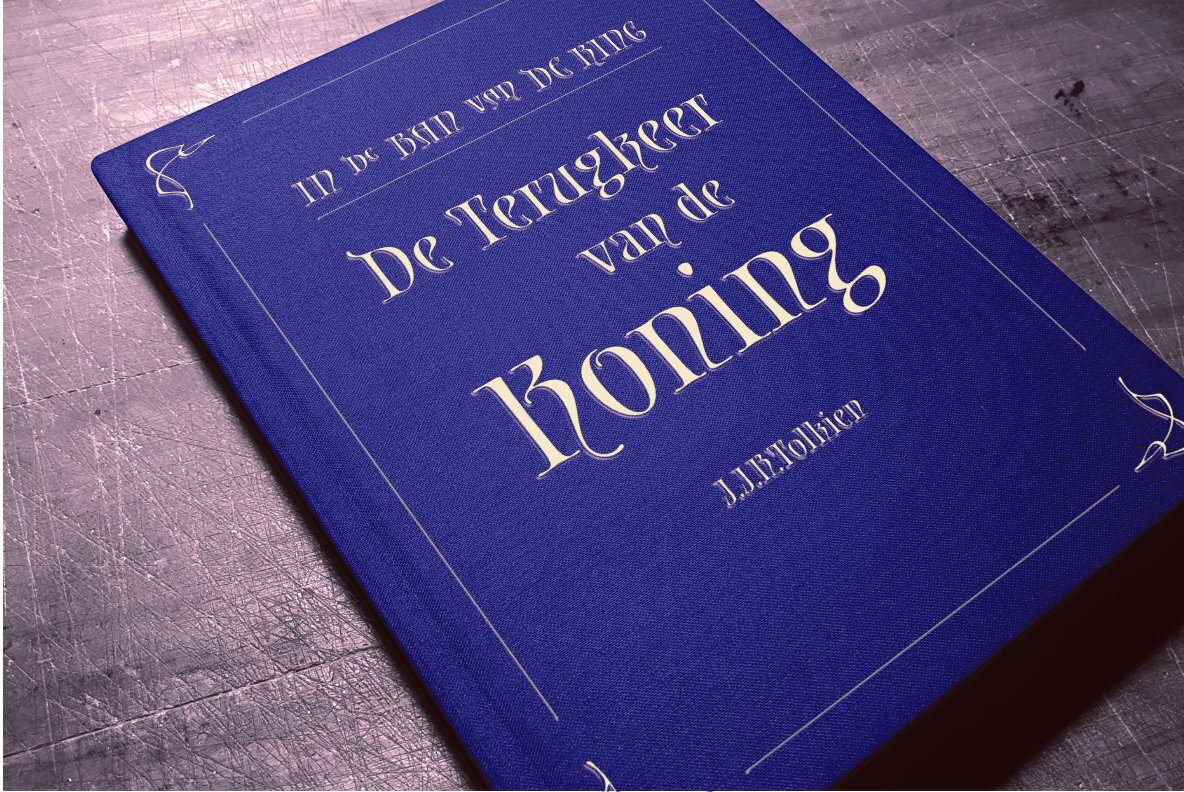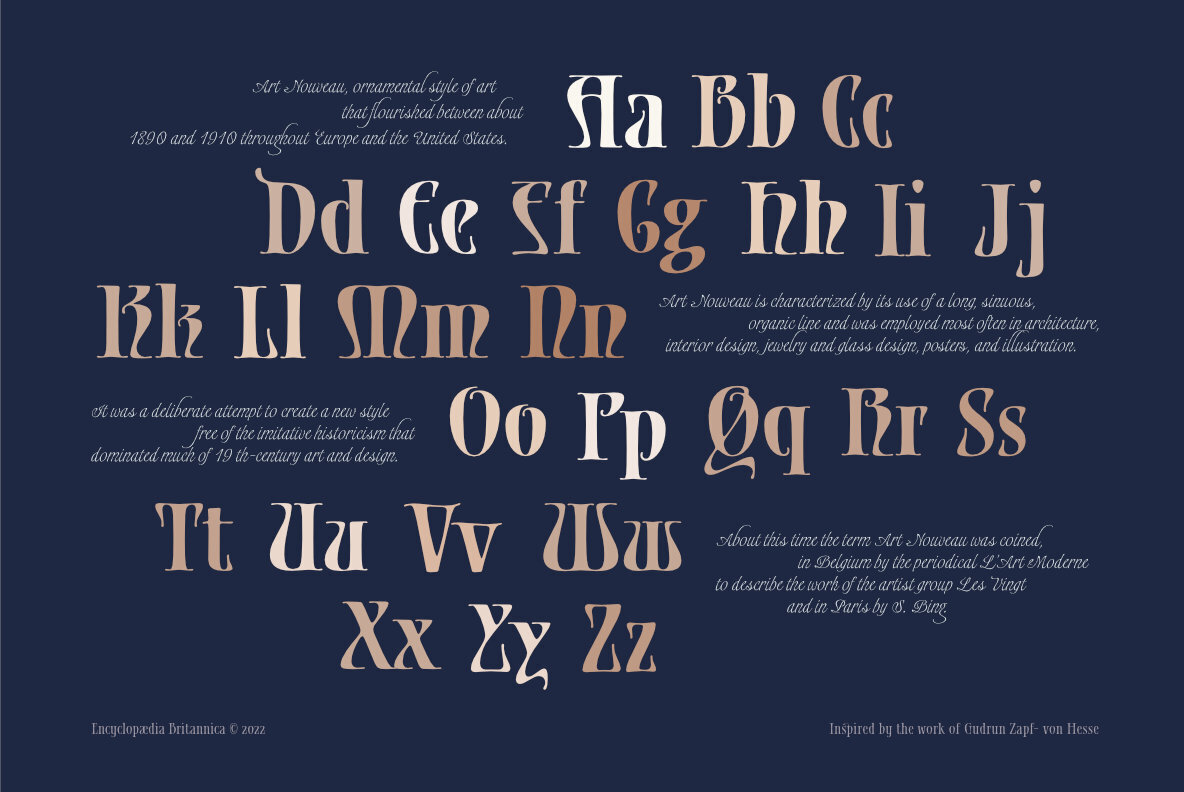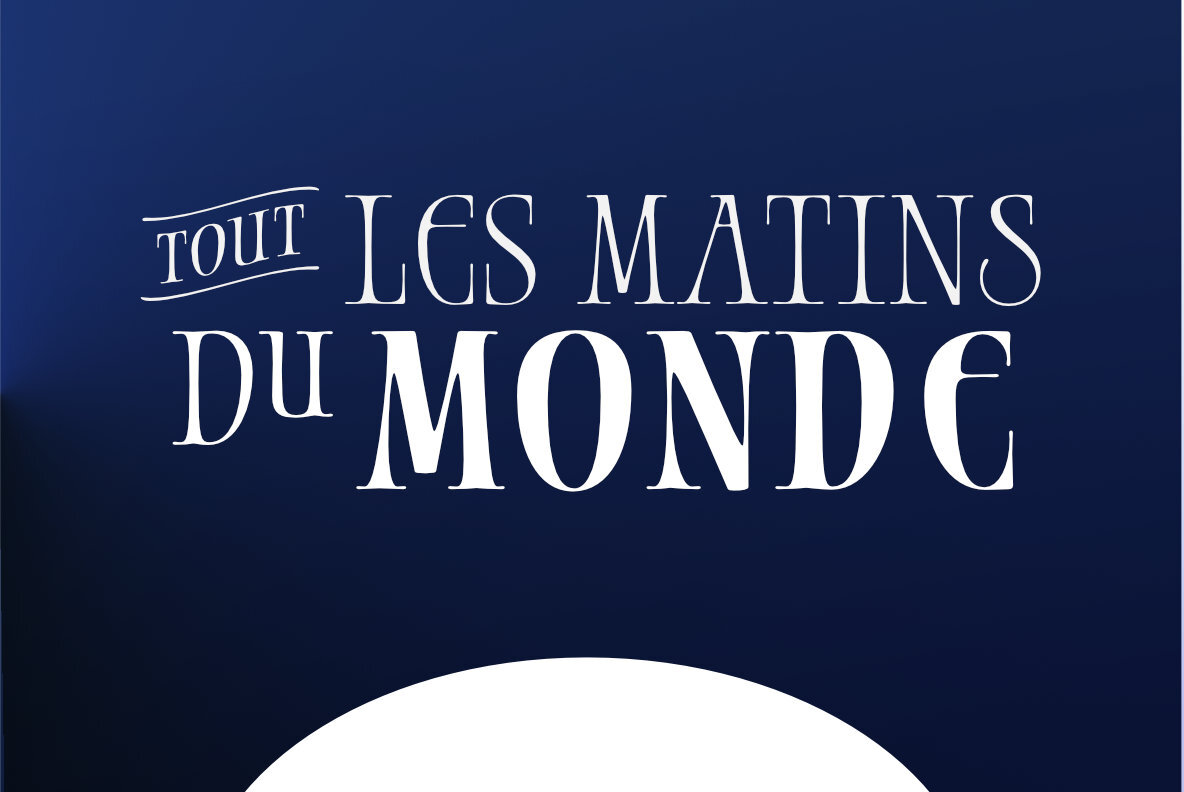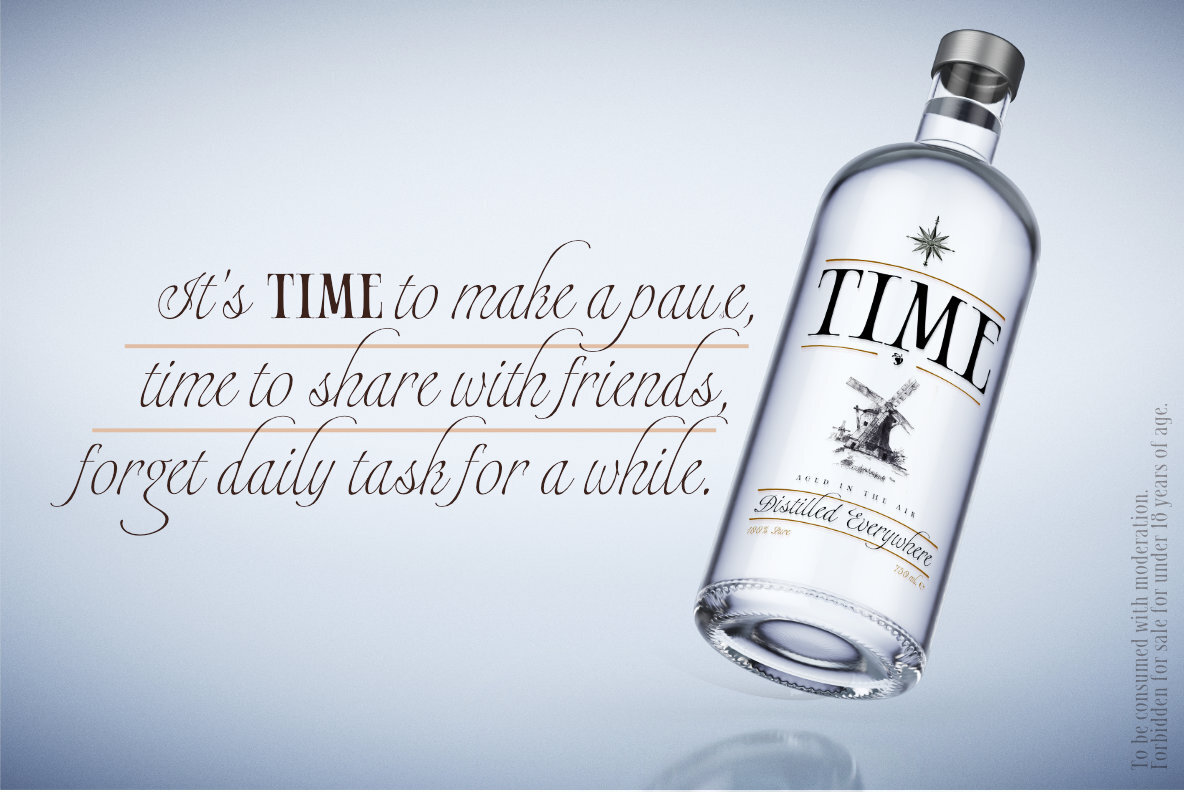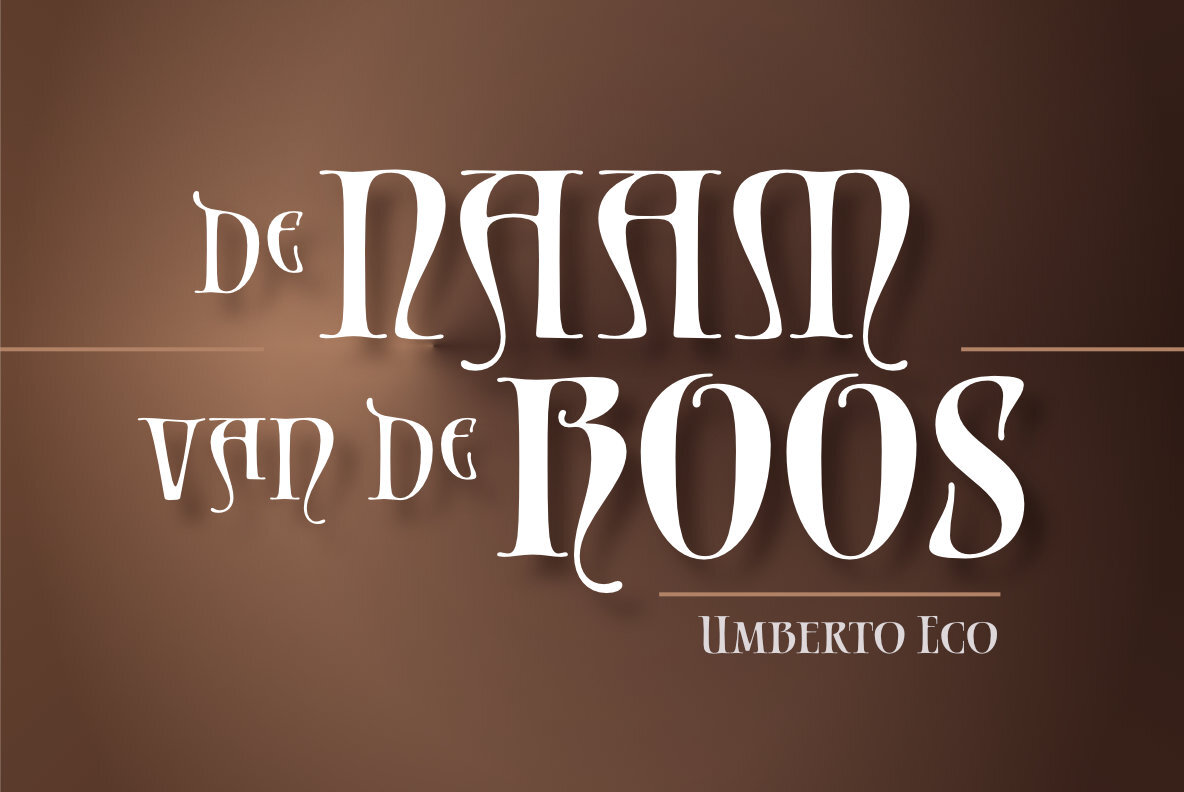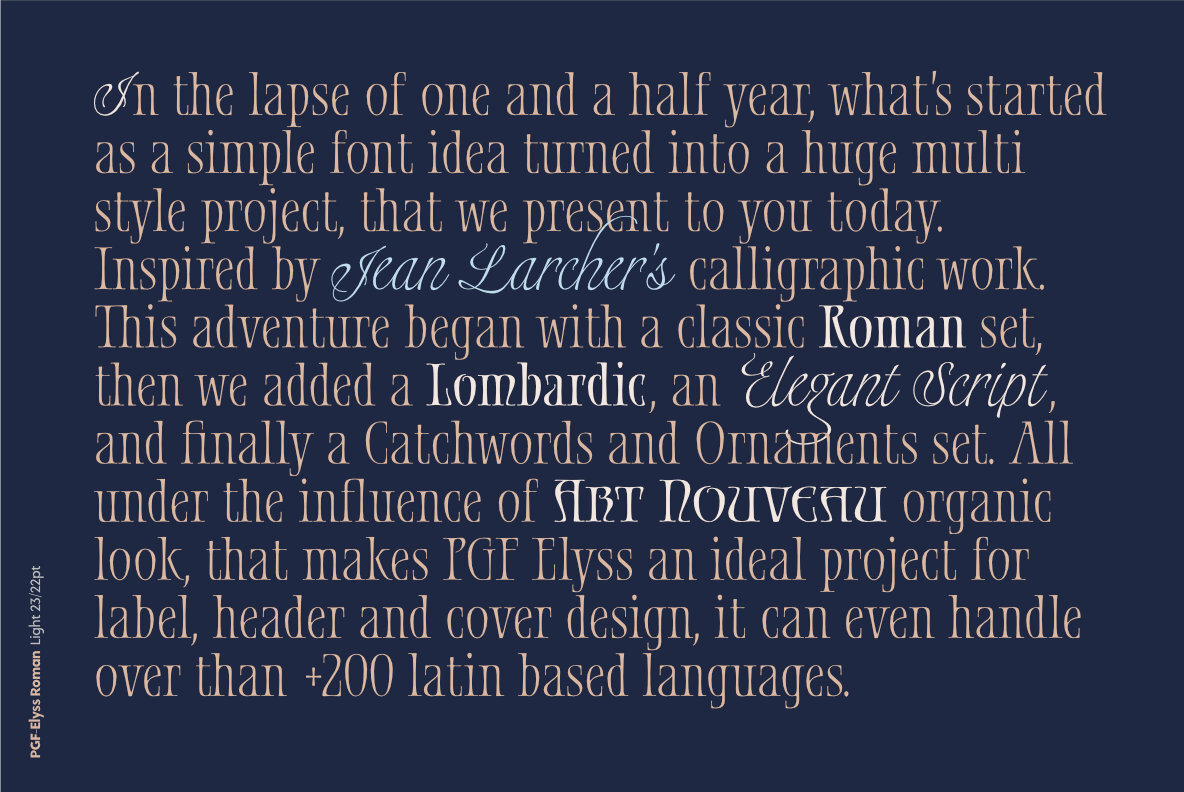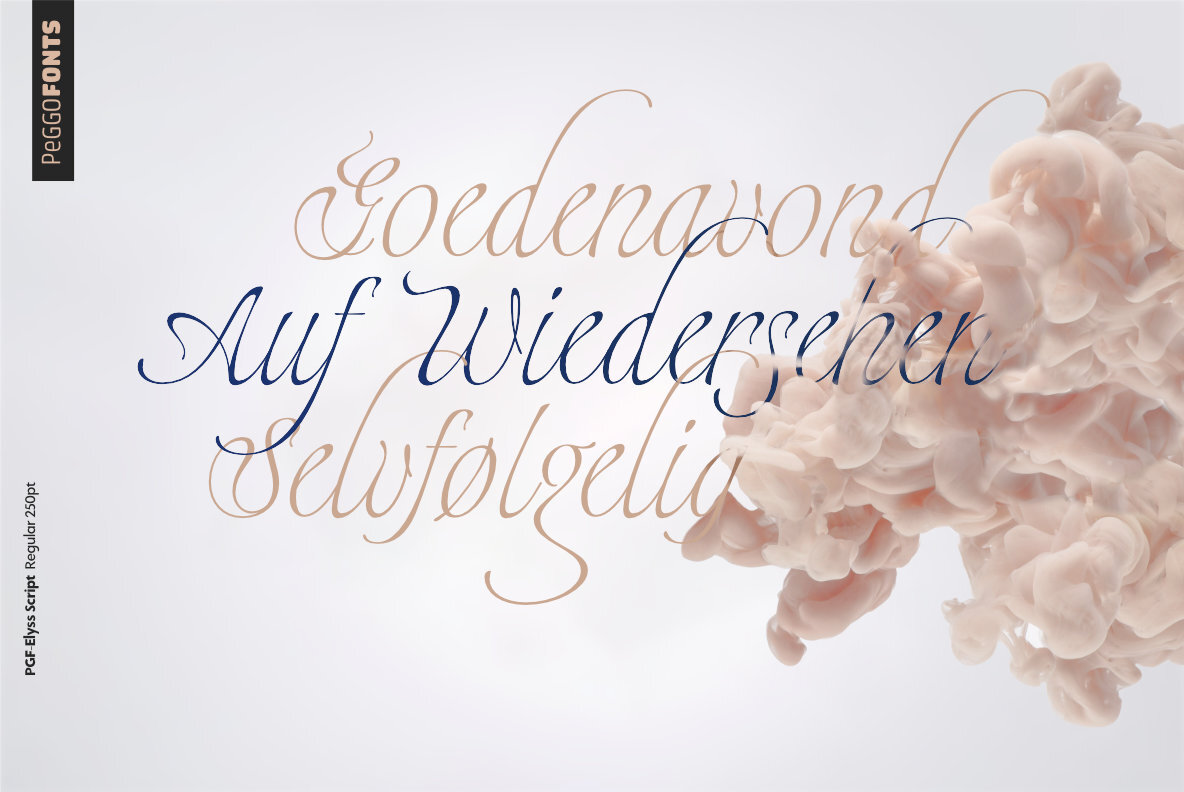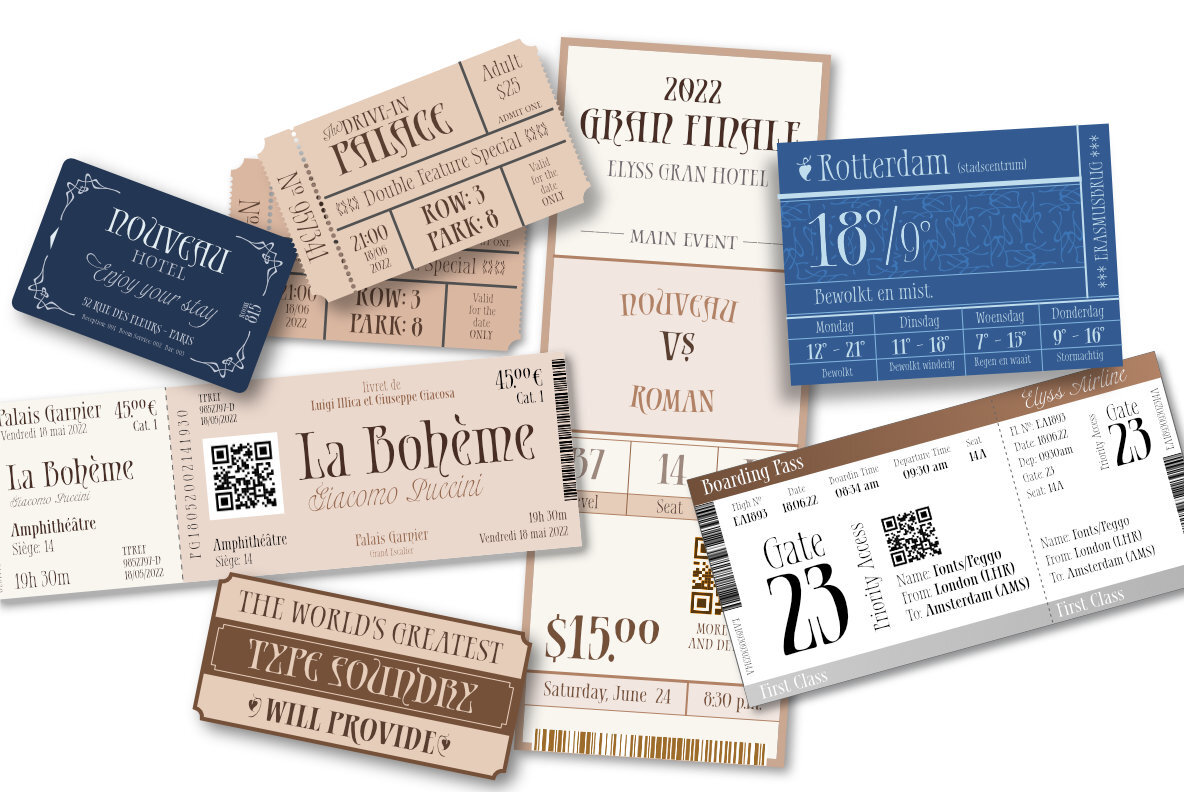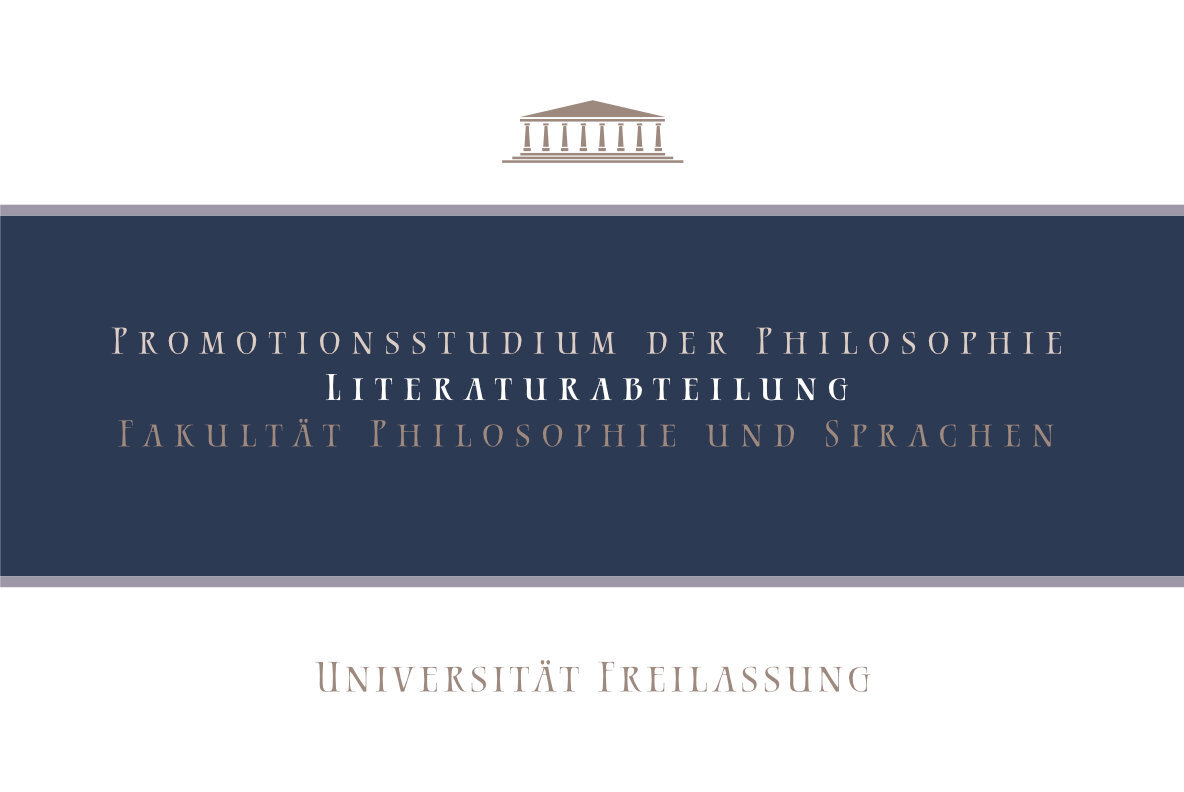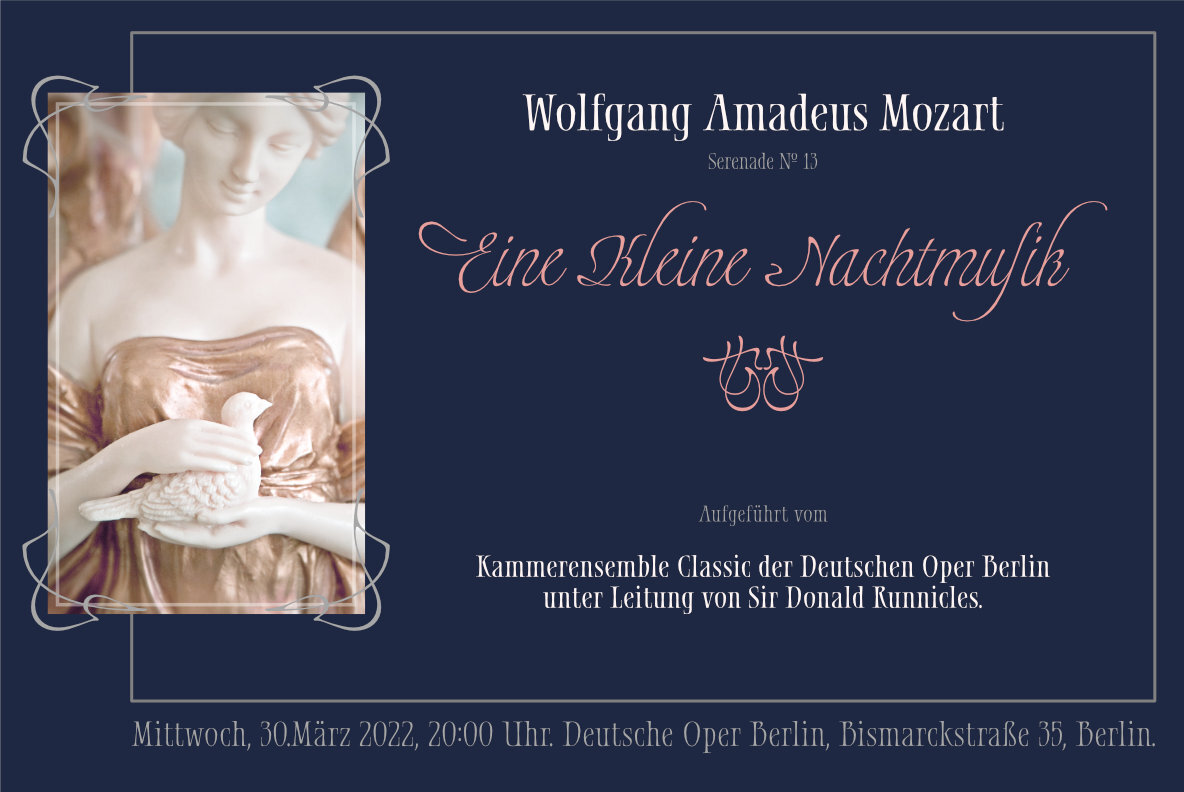
PGF Elyss Font
In the lapse of one and a half year, what's started as a simple font idea turned into a huge multi style project, that we present to you today. Inspired by Jean Larcher's calligraphic work. This adventure began with a classic Roman set, then we added a Lombardic, an Elegant Script, and finally a Catchwords and Ornaments set.
All under the influence of Art Nouveau organic look, that makes PGF Elyss an ideal project for label, header and cover design, it can even handle over than +200 latin based languages.